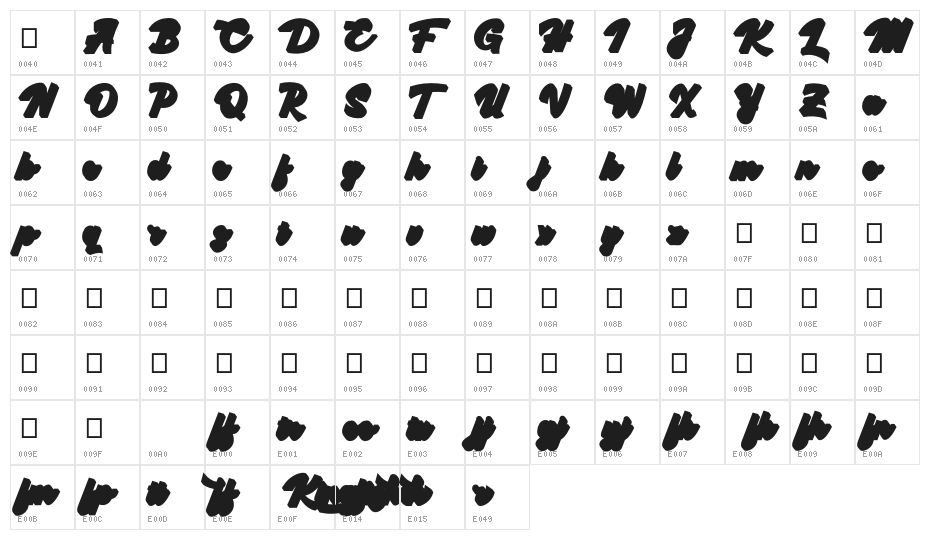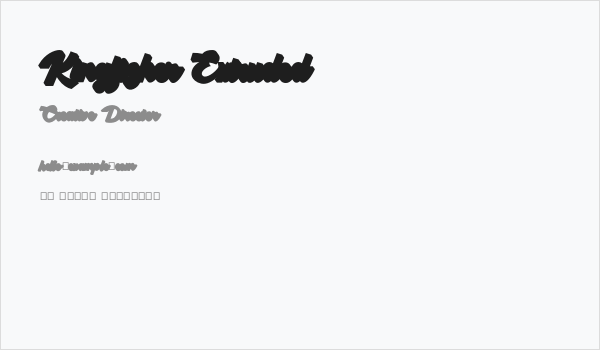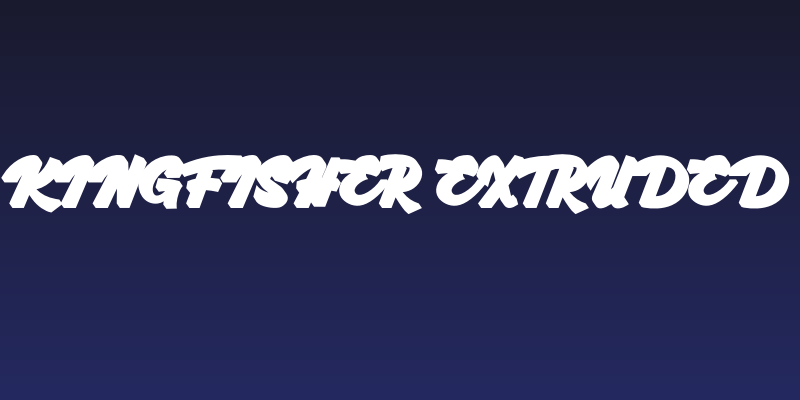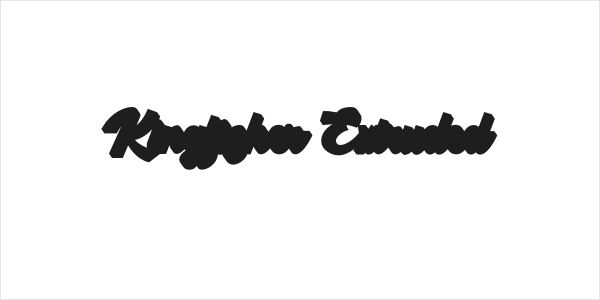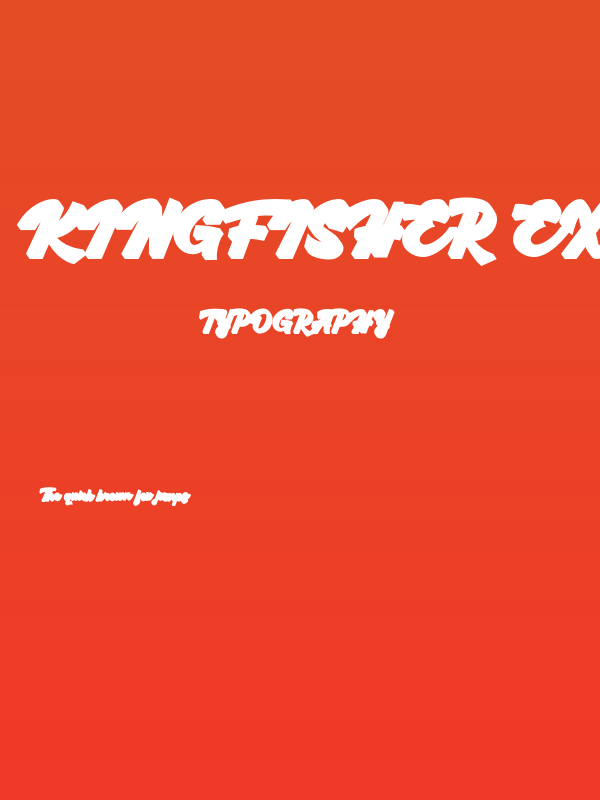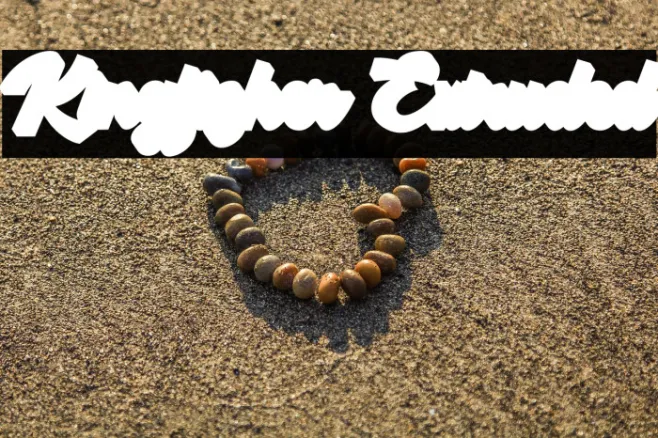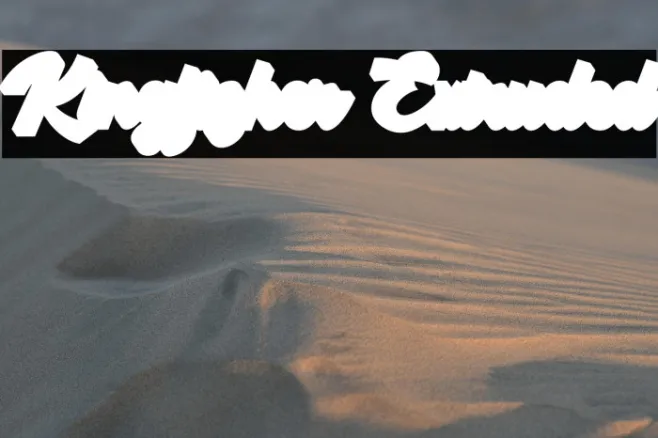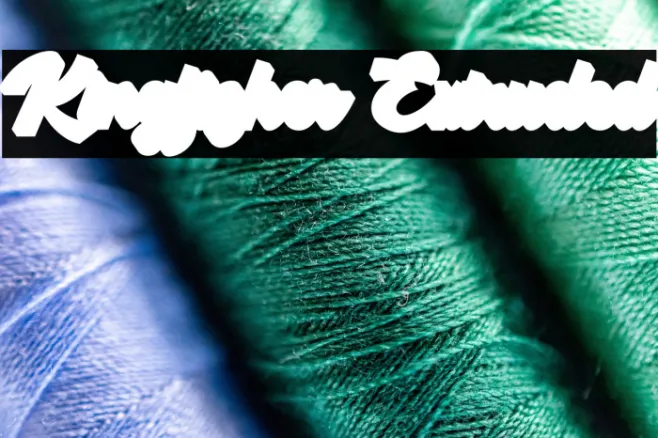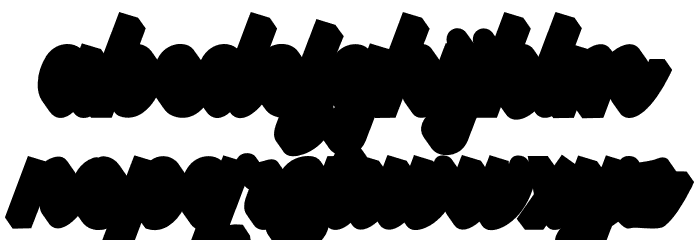
Kingfisher Extruded Font
Kingfisher Extruded Description
This font features a bold, dynamic style with a strong presence, characterized by its thick, extruded letterforms. The uppercase and lowercase letters maintain a consistent, flowing script-like appearance, giving it a sense of movement and energy. The strokes are broad and rounded, contributing to a playful yet assertive look. The font lacks special characters, focusing on a robust alphabet presentation. Its boldness and unique style make it ideal for eye-catching designs.
| Proposed Projects | Ideal for branding, posters, and headlines where a strong, energetic presence is needed. |